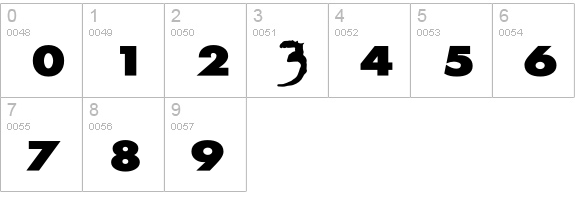
Scream Real font is a dynamic and eye-catching typeface that is sure to make a statement in any design project. With its bold and edgy appearance, this font is perfect for grabbing attention and adding a touch of excitement to your work. The sharp lines and modern look of Scream Real font exude a sense of energy and creativity, making it ideal for projects that demand a bold and impactful aesthetic. Best of all, Scream Real font is available for free download at FontsMarket.com. This means you can easily access this unique and versatile typeface to enhance your designs without any cost. Whether you're working on a poster, flyer, logo, or any other creative project, Scream Real font is sure to help you stand out from the crowd. Download it today and unleash your creativity with this striking and expressive font.